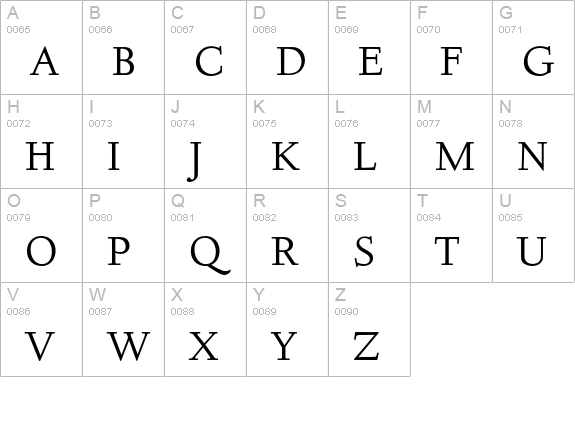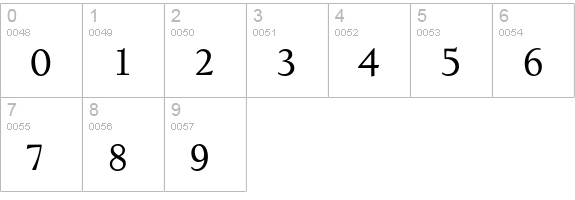
Deepdene BQ Roman Font Details
Deepdene BQ Roman is a classic and elegant serif font that exudes sophistication and style. With its beautifully crafted letterforms and timeless appeal, this font is perfect for a wide range of design projects, from branding to editorial design. The clean lines and balanced proportions of Deepdene BQ Roman make it a versatile choice for both print and digital applications. What makes Deepdene BQ Roman even more appealing is that it is available for free download at FontsMarket.com. This means that you can easily access this high-quality font without any cost, making it a valuable addition to your font library. Whether you're working on a professional project or a personal creative endeavor, Deepdene BQ Roman is sure to elevate your designs and leave a lasting impression. Download it today and enjoy the beauty and versatility of this stunning font.